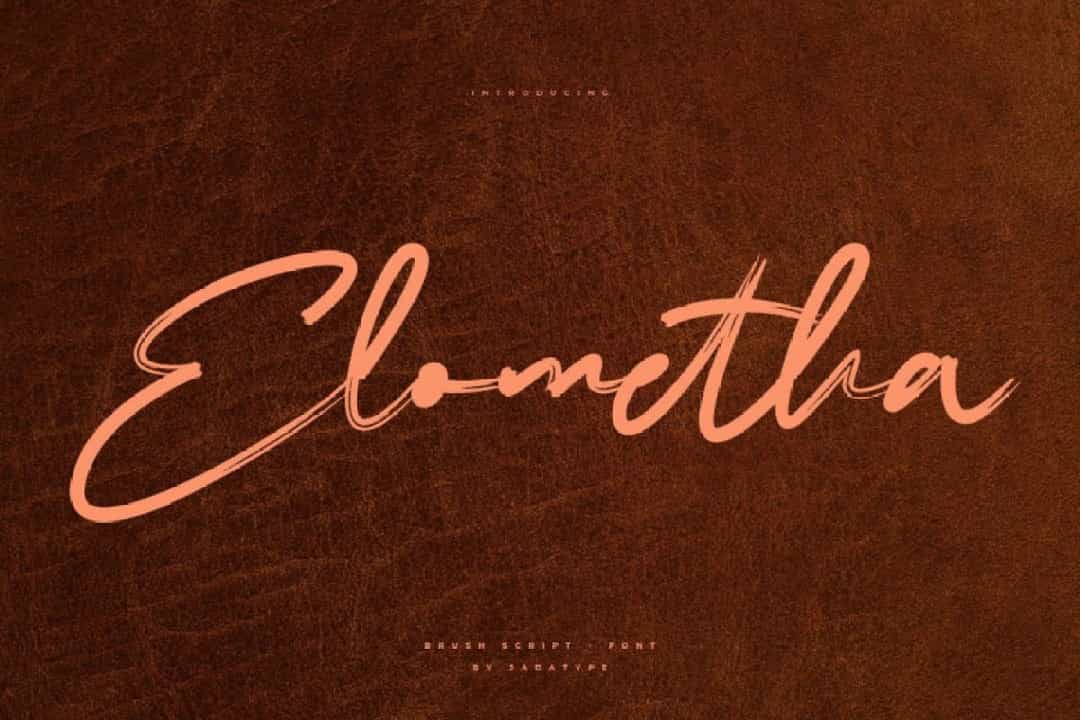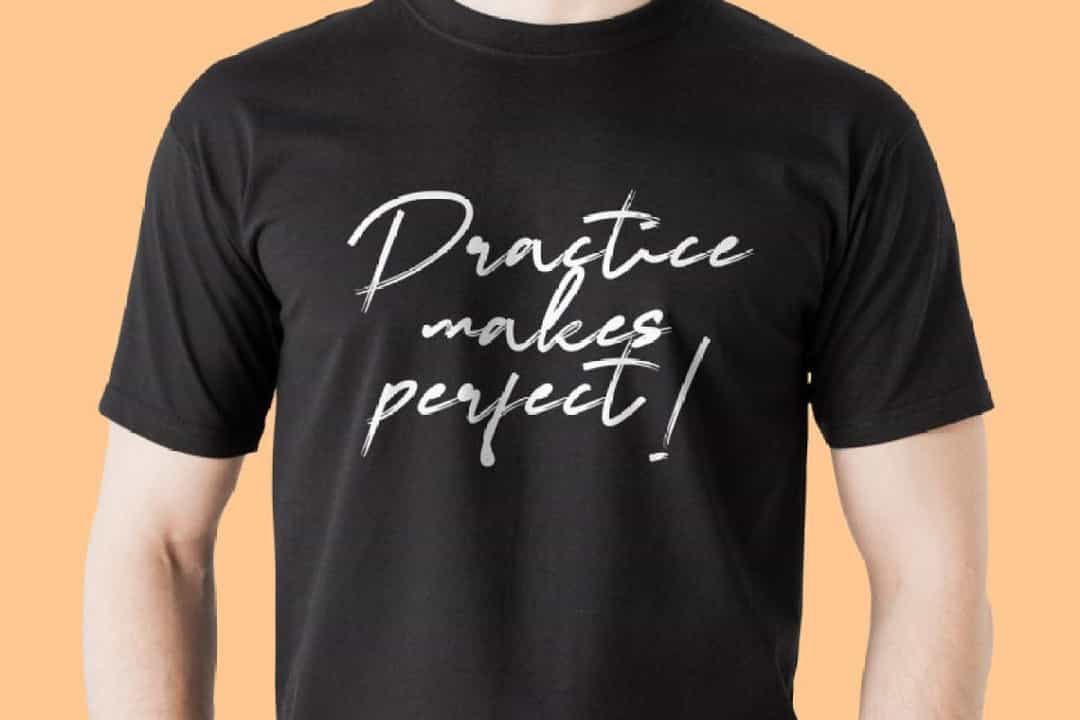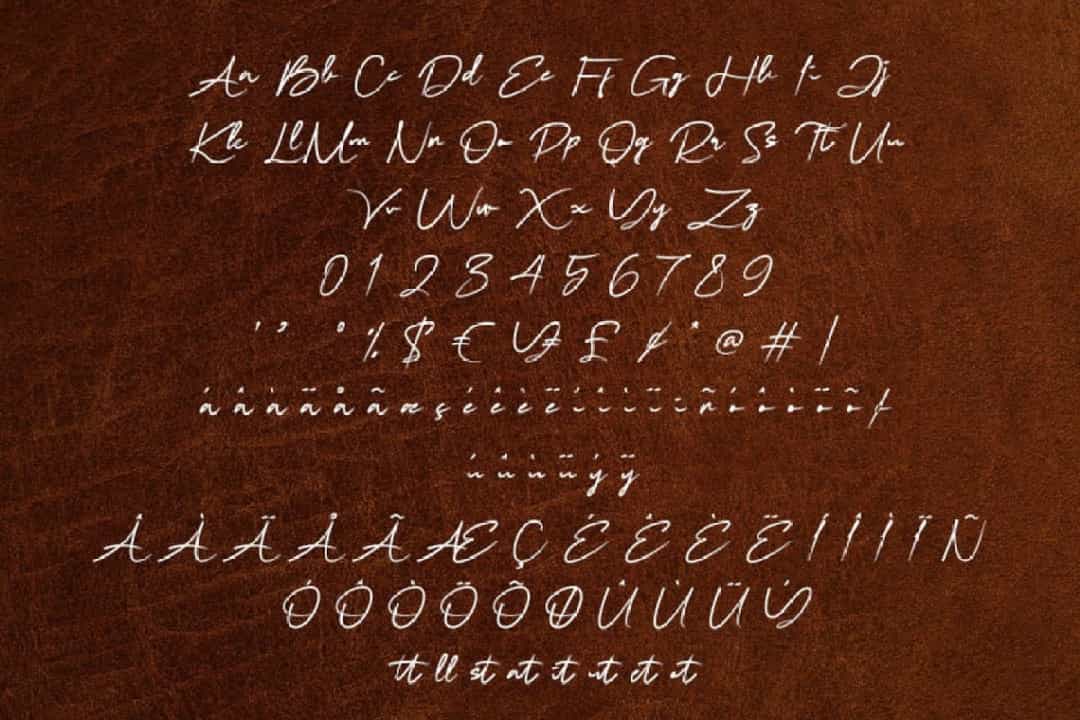
Elometha is an elegant brush handwritten font designed for branding, social media products, logotypes advertising and more. This font includes standard English letters and numbers, punctuation marks, accents that allow multilingualism as well as accented characters that provide multilingualism.